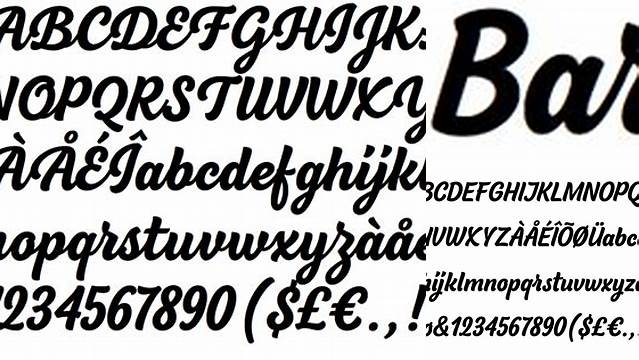
Beach Bar Bold Font: Free Download Guide
Hey guys! Are you looking to give your designs a fun, summery vibe? Look no further! In this article, we're diving deep into the world of beach bar bold fonts, showing you where to find them, how to use them, and why they're perfect for your next project. Let’s get started!
1. Understanding Beach Bar Bold Fonts
Beach bar bold fonts are typefaces that evoke the relaxed, carefree atmosphere of a beachside bar. They often feature thick strokes, playful curves, and a touch of retro charm, making them ideal for posters, logos, and social media graphics related to summer, vacations, and good times. These fonts capture the essence of a tropical getaway, bringing warmth and friendliness to any design. When you choose a beach bar bold font, you’re not just selecting a typeface; you're choosing a mood. The right font can instantly transport your audience to a sunny beach, cocktail in hand. Whether you're designing a menu for a beachside restaurant or creating promotional material for a summer event, a bold font will help you grab attention and convey the right message. The versatility of these fonts also means they can be used in various contexts, from casual invitations to eye-catching advertisements. Plus, the fact that many designers offer these fonts for free download makes them accessible to everyone, regardless of budget. So, if you want to add a splash of summer to your next project, consider exploring the world of beach bar bold fonts – you won’t be disappointed!
2. Characteristics of Beach-Themed Bold Fonts
When we talk about beach-themed bold fonts, we’re really focusing on fonts that scream “vacation!” Think about the fonts you see on surf shop signs, beach party flyers, and tropical drink menus – those are the fonts we're after. These fonts often have a hand-drawn or vintage feel, with slightly imperfect edges and a playful bounce to the letters. They might feature elements like waves, sunbursts, or even subtle nautical details integrated into the design. What sets these fonts apart is their ability to convey a sense of relaxation and fun. A beach-themed bold font isn't just about being legible; it's about creating an emotional connection with the viewer. The font should make people feel like they're already on vacation, even before they read the message. Imagine using a bold, beach-themed font for a travel agency's advertisement – it immediately conjures up images of sun, sand, and sea, enticing potential customers to book their next getaway. Moreover, these fonts are incredibly versatile. They work well for both print and digital media, making them a valuable asset for any designer looking to capture the essence of summer. So, whether you're designing a poster for a beach volleyball tournament or creating a logo for a seafood restaurant, consider the unique characteristics of beach-themed bold fonts to make your project stand out.
6. Using Beach Bar Fonts in Graphic Design
Beach bar fonts can be incredibly versatile in graphic design. Their bold and playful nature makes them perfect for attracting attention, especially in designs related to summer, travel, and leisure. Consider using these fonts for posters advertising beach parties, flyers promoting surf lessons, or logos for beachside restaurants. The key is to use them strategically. Avoid using them in large blocks of text, as their distinctive style can become overwhelming. Instead, use them for headings, titles, and short phrases that need to stand out. Pair them with simpler, more neutral fonts for body text to ensure readability. When choosing colors, think about the beach environment. Bright blues, sunny yellows, and sandy browns can complement the font's style and enhance the overall beachy vibe. Also, don't be afraid to experiment with different effects, such as shadows, outlines, and gradients, to add depth and visual interest. Remember, the goal is to create a design that captures the carefree spirit of the beach. By carefully selecting and using beach bar fonts, you can create graphics that transport your audience to a sunny paradise.
7. Font Pairing with Beach Bar Bold Fonts
Pairing fonts can be tricky, but when done right, it can elevate your design from good to great. When working with a beach bar bold font, you want to choose a secondary font that complements its playful nature without overpowering it. A good rule of thumb is to pair a decorative font with a more simple and neutral font. For example, you could pair a bold, script-style beach font with a clean sans-serif font like Open Sans or Lato for body text. This creates a nice contrast and ensures readability. Another option is to use a serif font like Merriweather or Playfair Display for headings and subheadings, paired with your beach bar bold font for the main title. The key is to create a visual hierarchy that guides the viewer's eye. Avoid pairing two overly decorative fonts, as this can create a cluttered and confusing design. Instead, aim for balance and harmony. Experiment with different font combinations until you find one that feels just right. Remember, the goal is to enhance the overall message and create a visually appealing design that captures the essence of the beach.
8. Best Design Software for Using Bold Fonts
To make the most of your beach bar bold font, you'll need the right design software. Adobe Photoshop is a classic choice for raster-based graphics, allowing you to create stunning visuals with a wide range of effects and filters. Adobe Illustrator is perfect for vector-based designs, ensuring that your font looks crisp and clear at any size. For layout design, Adobe InDesign is the industry standard, offering powerful tools for creating brochures, posters, and other multi-page documents. If you're looking for free alternatives, GIMP is a great open-source image editor that can handle most of Photoshop's features. Inkscape is a vector graphics editor similar to Illustrator, and Scribus is a desktop publishing application that rivals InDesign. All of these programs allow you to easily import and use your beach bar bold font, giving you the freedom to create stunning designs. When choosing software, consider your specific needs and budget. If you're a professional designer, the Adobe Creative Suite is a worthwhile investment. But if you're just starting out or working on a tight budget, the free alternatives are excellent options.
9. Creating Logos with Beach-Style Fonts
When it comes to creating logos, a beach-style font can be a fantastic choice for businesses that want to evoke a sense of fun, relaxation, and summer vibes. Think about surf shops, beachside cafes, or vacation rental companies – these are all businesses that could benefit from a logo featuring a bold, beachy font. The key is to choose a font that accurately reflects the brand's personality and values. A playful, hand-drawn font might be perfect for a children's surf school, while a more sophisticated, vintage-inspired font could be ideal for a boutique hotel. When designing a logo, keep it simple and memorable. Avoid using too many colors or complex graphics, as this can make the logo look cluttered and unprofessional. Instead, focus on the font itself and how it can be used to convey the brand's message. Experiment with different letter spacing, kerning, and alignment to create a unique and eye-catching design. Also, consider adding a subtle graphic element, such as a wave or a sun, to further enhance the beachy feel. With the right beach-style font and a little creativity, you can create a logo that perfectly captures the essence of your brand.
10. Font Licensing and Usage Rights
Before you start using that awesome beach bar bold font you just downloaded, it's crucial to understand font licensing and usage rights. Font licenses dictate how you're allowed to use the font, whether it's for personal or commercial projects. Some fonts are free for both personal and commercial use, while others may only be free for personal use. If you plan to use the font in a project that will generate revenue, such as a logo for a business or a poster for a paid event, you'll likely need a commercial license. Ignoring font licensing can lead to legal trouble, so it's always best to err on the side of caution. Most font websites clearly state the license terms for each font. Look for phrases like "free for personal use," "commercial license available," or "public domain." If you're unsure about the license terms, contact the font designer or foundry directly for clarification. Remember, even if a font is free to download, it doesn't necessarily mean you can use it however you want. Respecting font licensing is essential for supporting the design community and ensuring that you're using fonts legally and ethically.
11. Exploring Retro Beach Fonts
Retro beach fonts are like a time machine, instantly transporting you back to the golden age of surf culture and vintage travel posters. These fonts often feature bold, blocky letters with rounded edges and a slightly distressed texture, evoking the nostalgia of classic beach signage. Think about the fonts you see on old surfboards, vintage postcards, and retro beach ads – those are the fonts we're talking about. What makes retro beach fonts so appealing is their ability to capture the carefree spirit of a bygone era. They bring a sense of authenticity and charm to any design, making them perfect for projects that aim to evoke a sense of nostalgia. Consider using a retro beach font for a vintage-inspired logo, a retro-themed poster, or a website that celebrates the history of surfing. When choosing a retro font, pay attention to the details. Look for fonts with subtle imperfections, such as uneven lines or faded textures, as these details add to the vintage feel. Also, consider the overall style of the font and how it fits with the rest of your design. With the right retro beach font, you can create designs that are both stylish and timeless.
12. Modern Takes on Beach Bold Fonts
While retro beach fonts have a certain charm, sometimes you need something a bit more contemporary. That's where modern takes on beach bold fonts come in. These fonts combine the bold, playful spirit of traditional beach fonts with clean lines, geometric shapes, and a modern aesthetic. Think about fonts that feature sleek curves, sharp angles, and a minimalist design. What sets these fonts apart is their versatility. They can be used in a wide range of projects, from branding and advertising to web design and social media. A modern beach bold font can add a touch of fun and personality to a corporate website, or it can be used to create eye-catching graphics for a summer-themed campaign. When choosing a modern font, consider the overall tone of your project. A clean, geometric font might be perfect for a tech startup with a beachy vibe, while a more playful, hand-drawn font could be ideal for a surf school. The key is to find a font that strikes the right balance between modern and beachy, creating a design that is both stylish and memorable.
13. Using Free Fonts for Commercial Projects
Finding a free font that you can use for commercial projects can feel like hitting the jackpot. While there are many free fonts available, not all of them are licensed for commercial use. Before using a free font in a project that will generate revenue, it's crucial to check the license agreement. Look for phrases like "free for commercial use" or "public domain." If the license is unclear, contact the font designer or foundry for clarification. Websites like Google Fonts and Fontspace offer a wide selection of free fonts that are licensed for commercial use. These fonts are a great option for designers on a budget who need high-quality fonts for their projects. However, keep in mind that even if a font is free for commercial use, there may be certain restrictions. For example, you may not be allowed to redistribute the font or use it in a way that violates the designer's copyright. Always read the fine print and make sure you understand the terms of the license before using a free font in your work. By being diligent about font licensing, you can avoid legal trouble and support the design community.
14. Beach Bar Font Alternatives
Sometimes, you might be looking for a beach bar bold font, but nothing quite hits the mark. Don't worry; there are plenty of alternatives that can still capture the essence of summer and fun. Consider exploring fonts with a similar vibe, such as script fonts, handwritten fonts, or vintage-inspired fonts. Script fonts can add a touch of elegance and personality to your designs, while handwritten fonts can create a more casual and approachable feel. Vintage fonts, on the other hand, can evoke a sense of nostalgia and retro charm. If you're looking for a font that's a bit more unique, try searching for fonts with nautical themes, such as fonts that feature anchors, waves, or other maritime elements. These fonts can add a subtle beachy touch to your designs without being too on-the-nose. Also, don't be afraid to experiment with different font combinations. Pairing a simple sans-serif font with a more decorative font can create a visually interesting and balanced design. The key is to find a font or font combination that accurately reflects the tone and style of your project.
15. Adding Font Effects to Beach Style Fonts
To really make your beach style fonts pop, consider adding some fun and creative font effects. Shadows, outlines, gradients, and textures can all enhance the visual appeal of your fonts and help them stand out. A subtle drop shadow can add depth and dimension, while a bold outline can make your fonts more visible. Gradients can create a sense of movement and energy, while textures can add a vintage or rustic feel. When adding font effects, it's important to use them sparingly. Too many effects can make your fonts look cluttered and overwhelming. Instead, focus on using effects that complement the font's style and enhance its overall impact. For example, a vintage-inspired font might look great with a subtle texture, while a modern font might benefit from a clean, simple outline. Experiment with different effects and combinations until you find a look that you love. Also, be sure to consider the overall design of your project and how the font effects fit in with the other elements. The goal is to create a cohesive and visually appealing design that effectively communicates your message.
16. Font Size and Readability for Beach Themes
When using beach themed fonts, it's important to consider font size and readability. A font can look beautiful, but if it's too small or difficult to read, it won't be effective in conveying your message. For headings and titles, you can use larger font sizes to grab attention. However, for body text, it's essential to choose a font size that is comfortable to read. A good rule of thumb is to use a font size of at least 12 points for body text, but this can vary depending on the font and the overall design of your project. Also, be sure to consider the contrast between the font color and the background color. If the contrast is too low, the text will be difficult to read. A high-contrast color combination, such as black text on a white background, is generally the easiest to read. When using beach themed fonts, which often have a more decorative style, it's even more important to pay attention to readability. Avoid using these fonts in large blocks of text, as their distinctive style can become overwhelming. Instead, use them for headings, titles, and short phrases that need to stand out. By carefully considering font size and readability, you can ensure that your message is clear and effective.
17. Color Palette Ideas for Beach Fonts
Choosing the right color palette is essential for creating a cohesive and visually appealing design with beach fonts. Colors can evoke emotions and set the tone for your project. When working with beach fonts, consider using colors that are inspired by the beach environment, such as blues, greens, yellows, and browns. Different shades of blue can represent the ocean and sky, while greens can evoke the lush vegetation of tropical landscapes. Yellows can symbolize sunshine and warmth, while browns can represent sand and earth. A classic beach color palette might include a combination of turquoise, sand, and white. For a more modern look, try pairing navy blue with coral and gold. If you want to create a more vibrant and energetic design, consider using bright, saturated colors like hot pink, orange, and lime green. Also, don't be afraid to experiment with different color combinations. A monochromatic color palette, which uses different shades of a single color, can create a sophisticated and elegant look. A complementary color palette, which uses colors that are opposite each other on the color wheel, can create a bold and eye-catching design. The key is to choose colors that complement your font and enhance the overall message of your project.
18. Font Kerning and Spacing Tips
Font kerning and spacing are essential for creating visually appealing and readable typography. Kerning refers to the spacing between individual letters, while spacing refers to the overall spacing between words and lines of text. Adjusting kerning can improve the appearance of your fonts by creating a more balanced and harmonious look. For example, if two letters are too close together, you can increase the kerning to create more space between them. Conversely, if two letters are too far apart, you can decrease the kerning to bring them closer together. When working with beach bar bold fonts, which often have unique and distinctive letterforms, it's especially important to pay attention to kerning. These fonts may require more manual kerning than simpler fonts to achieve a balanced and readable look. In addition to kerning, you should also consider the overall spacing of your text. Adjusting the spacing between words and lines of text can improve readability and create a more visually appealing layout. A good rule of thumb is to use a line height that is 1.5 to 2 times the font size. This will provide enough space between lines of text to make it easy to read. By carefully adjusting kerning and spacing, you can create typography that is both beautiful and functional.
19. Bold Fonts for Summer Promotions
Bold fonts are a fantastic choice for summer promotions because they grab attention and convey a sense of excitement and energy. When you're trying to entice people to take advantage of summer deals, attend beach parties, or book vacations, a bold font can be your best friend. Imagine a poster advertising a summer sale with a bold, eye-catching font screaming "50% OFF!" It's hard to miss, right? The key is to choose a bold font that fits the overall theme of your promotion. For example, a playful, hand-drawn font might be perfect for a children's summer camp, while a more sophisticated, sans-serif font could be ideal for a luxury resort. In addition to choosing the right font, you should also consider the color and size. Bright, vibrant colors can evoke the feeling of summer, while a larger font size will ensure that your message is easily visible. Don't be afraid to experiment with different font combinations and effects to create a design that truly stands out. With the right bold font, you can create summer promotions that are both visually appealing and highly effective.
20. Designing Beach Wedding Invitations with Bold Fonts
Planning a beach wedding? Then you'll definitely want to consider using bold fonts for your invitations. A bold font can add a touch of elegance and sophistication to your invitations, while still capturing the relaxed and carefree spirit of a beach wedding. When choosing a bold font for your invitations, consider the overall style of your wedding. For a more formal wedding, a classic serif font like Times New Roman or Garamond might be a good choice. For a more casual wedding, a sans-serif font like Helvetica or Arial could be more appropriate. You can also consider using a script font for the names of the bride and groom, adding a touch of romance and personalization. In addition to choosing the right font, you should also consider the color and paper stock. Soft, pastel colors like blush pink, seafoam green, and sandy beige can evoke the feeling of the beach, while a textured paper stock can add a touch of luxury. Don't be afraid to experiment with different font combinations and layouts to create an invitation that truly reflects your personal style. With the right bold font and a little creativity, you can create beach wedding invitations that are both beautiful and memorable.
21. Creating Eye-Catching Social Media Graphics
In today's digital age, eye-catching social media graphics are essential for attracting attention and engaging with your audience. When you're scrolling through your social media feed, what makes you stop and take notice? It's often the visuals that are the most compelling. That's why it's so important to create graphics that are both visually appealing and informative. When designing social media graphics, consider using bold fonts to make your message stand out. A bold font can grab attention and convey a sense of urgency or excitement. Pair your bold font with high-quality images or illustrations to create a visually appealing design. Also, be sure to use colors that are consistent with your brand and that complement the overall theme of your message. In addition to the visuals, it's also important to write compelling copy that encourages people to engage with your content. Use strong verbs, clear language, and a call to action to encourage people to like, comment, and share your posts. With the right combination of visuals and copy, you can create eye-catching social media graphics that help you reach a wider audience and achieve your marketing goals.
22. Optimizing Website Typography with Beach Fonts
Website typography plays a crucial role in user experience and readability. When choosing fonts for your website, it's important to consider factors such as legibility, readability, and overall design aesthetic. While beach fonts can add a fun and playful touch to your website, it's important to use them sparingly and strategically. Avoid using beach fonts for large blocks of text, as their decorative style can make it difficult to read. Instead, use them for headings, titles, and short phrases that need to stand out. For body text, choose a clean and legible font that is easy on the eyes. Sans-serif fonts like Arial, Helvetica, and Open Sans are popular choices for website body text. In addition to font choice, you should also consider font size, line height, and letter spacing. A good rule of thumb is to use a font size of at least 16 pixels for body text, and a line height that is 1.5 to 2 times the font size. This will provide enough space between lines of text to make it easy to read. By optimizing your website typography, you can create a more enjoyable and user-friendly experience for your visitors.
23. Printing Bold Fonts on Various Materials
When you're designing a project that will be printed, it's important to consider how your bold fonts will look on different materials. The type of material you choose can affect the way the ink is absorbed, which can impact the clarity and sharpness of your fonts. For example, printing on glossy paper can make your fonts look sharper and more vibrant, while printing on matte paper can create a more muted and subdued look. When printing on textured materials, such as canvas or fabric, it's important to choose a bold font that is thick enough to withstand the texture. Thin or delicate fonts may get lost in the texture, making them difficult to read. Also, be sure to consider the color of the material and how it will affect the appearance of your fonts. For example, printing dark fonts on a light material will create a high-contrast look, while printing light fonts on a dark material can be more challenging. Before you commit to a large print run, it's always a good idea to print a sample to see how your fonts look on the chosen material. This will allow you to make any necessary adjustments to your design before it's too late.
24. Beach Font Trends in 2024
Staying up-to-date with the latest beach font trends can help you create designs that are both stylish and relevant. In 2024, we're seeing a resurgence of retro-inspired fonts, with a focus on vintage surf culture and classic beach signage. Think bold, blocky letters with rounded edges and a slightly distressed texture. Hand-drawn fonts are also gaining popularity, adding a personal and authentic touch to designs. These fonts often feature imperfect lines and a playful bounce, creating a more casual and approachable feel. In addition to retro and hand-drawn fonts, we're also seeing a rise in modern, geometric fonts with a beachy twist. These fonts combine clean lines and sharp angles with elements that evoke the feeling of the beach, such as waves, sunbursts, or nautical motifs. When choosing a beach font for your project, consider the overall tone and style you're trying to achieve. Are you going for a vintage vibe, a modern aesthetic, or something in between? By staying informed about the latest trends, you can create designs that are both timeless and on-point.
25. Creating Custom Beach Fonts
If you're looking for a truly unique and personalized font, consider creating your own custom beach font. Creating a custom font can be a challenging but rewarding process, allowing you to express your creativity and create a font that perfectly matches your brand or project. There are several font creation software programs available, such as FontLab Studio, Glyphs, and FontForge. These programs allow you to draw each letterform individually, adjust kerning and spacing, and add special characters. When designing a custom beach font, consider the overall style you're trying to achieve. Are you going for a retro look, a modern aesthetic, or something completely unique? Sketch out your ideas on paper before you start designing in the software. Pay attention to the details, such as the thickness of the strokes, the shape of the serifs, and the overall balance of the letterforms. Once you've created your font, be sure to test it out in different sizes and contexts to ensure that it's legible and visually appealing. Creating a custom font can be a time-consuming process, but the end result can be a valuable asset for your brand or project.
26. Monetizing Your Font Designs
If you're a talented font designer, you might be interested in monetizing your creations. Selling your font designs can be a great way to earn passive income and share your work with the world. There are several online marketplaces where you can sell your fonts, such as Creative Market, MyFonts, and Fontspring. These marketplaces handle the payment processing and marketing, making it easy for you to reach a large audience of potential customers. When selling your fonts, it's important to create high-quality previews that showcase the font's features and potential uses. Also, be sure to write a clear and compelling description that highlights the font's unique characteristics and benefits. Pricing your fonts can be tricky. You'll want to price them competitively, but also ensure that you're being fairly compensated for your work. Research the prices of similar fonts on the market to get an idea of what customers are willing to pay. In addition to selling your fonts on online marketplaces, you can also sell them directly from your own website. This gives you more control over the pricing and branding, but it also requires more effort in terms of marketing and customer service. By monetizing your font designs, you can turn your passion into a profitable business.
27. Font Management Tools and Techniques
As a designer, you're likely to accumulate a large collection of fonts over time. Managing your fonts effectively is essential for staying organized and ensuring that you can quickly find the fonts you need for each project. There are several font management tools available, such as FontBase, NexusFont, and RightFont. These tools allow you to organize your fonts into collections, preview fonts, and activate or deactivate fonts as needed. When choosing a font management tool, consider factors such as ease of use, features, and compatibility with your operating system and design software. In addition to using font management tools, there are also several techniques you can use to keep your font library organized. Create a consistent naming convention for your fonts, and use folders to categorize them by style, type, or project. Regularly review your font library and delete any fonts that you no longer need. Also, be sure to back up your font library in case of a computer crash or other disaster. By using font management tools and techniques, you can keep your font library organized and ensure that you can always find the perfect font for your projects.
28. Common Font Design Mistakes to Avoid
Even experienced designers can make mistakes when designing fonts. Avoiding these common mistakes can help you create fonts that are both visually appealing and functional. One common mistake is creating letterforms that are inconsistent or unbalanced. Pay attention to the details, such as the thickness of the strokes, the shape of the serifs, and the overall balance of the letterforms. Another common mistake is neglecting kerning and spacing. Inadequate kerning and spacing can make your fonts look uneven and difficult to read. Be sure to carefully adjust the kerning and spacing of each letter pair to create a balanced and harmonious look. Another mistake is using too many decorative elements or special characters. While decorative elements can add personality to your fonts, using too many can make them look cluttered and overwhelming. Stick to a few well-chosen elements that complement the overall style of your font. Also, be sure to test your fonts in different sizes and contexts to ensure that they are legible and visually appealing. By avoiding these common font design mistakes, you can create fonts that are both beautiful and functional.
29. Future Trends in Font Design
The world of font design is constantly evolving, with new trends and technologies emerging all the time. Staying informed about future trends can help you create fonts that are both innovative and relevant. One trend that is gaining momentum is variable fonts. Variable fonts allow you to adjust various aspects of a font, such as weight, width, and slant, using a single font file. This can significantly reduce file sizes and improve website performance. Another trend is the use of AI and machine learning in font design. AI can be used to automate certain aspects of the font design process, such as kerning and spacing, and to generate new and unique letterforms. We're also seeing a growing demand for fonts that are designed to be accessible to people with disabilities. This includes fonts that are easy to read for people with visual impairments, dyslexia, or other learning disabilities. By staying informed about future trends in font design, you can create fonts that are both cutting-edge and inclusive.
30. Resources for Learning More About Typography
If you're interested in learning more about typography, there are many excellent resources available. Books like "The Elements of Typographic Style" by Robert Bringhurst and "Thinking with Type" by Ellen Lupton are considered classics in the field. Online resources like Typewolf, I Love Typography, and Fonts in Use offer a wealth of information about font design, font pairing, and typography best practices. Online courses and workshops, such as those offered by Skillshare and Coursera, can provide you with in-depth training in typography and font design. Also, be sure to follow font designers and typographers on social media to stay up-to-date with the latest trends and techniques. Attending typography conferences and workshops can provide you with opportunities to network with other designers and learn from industry experts. By taking advantage of these resources, you can deepen your knowledge of typography and improve your design skills.